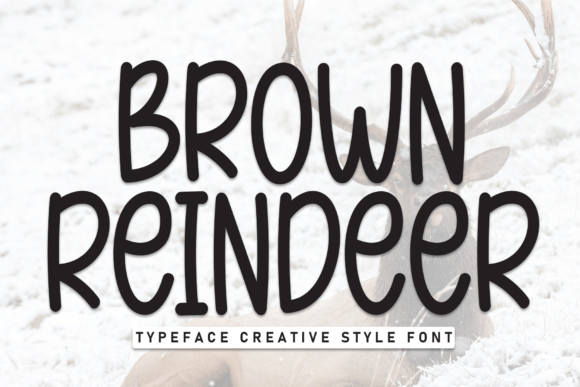
Brown Reindeer Font: Add a Cozy Touch to Your Designs
Are you looking for a font that can add a playful and warm touch to your designs? Look no further than the Brown Reindeer Font! This fun, bold display font features a handwritten style that’s perfect for holiday themes, invitations, and any project that needs a cozy vibe.
What is Brown Reindeer Font?
Brown Reindeer Font is a unique and eye-catching font that’s designed to bring a smile to your face. Its thick, rounded letters give it a friendly and approachable look that’s sure to capture the attention of your audience. Whether you’re designing a holiday card, a party invitation, or a social media post, this font is sure to add a personal touch that sets your design apart.
Key Features of Brown Reindeer Font
- Playful Handwritten Style: Brown Reindeer Font features a playful, handwritten style that’s perfect for adding a personal touch to your designs.
- Thick, Rounded Letters: The font’s thick, rounded letters give it a friendly and warm look that’s sure to appeal to your audience.
- Bold Display Font: Brown Reindeer Font is a bold display font that’s perfect for headlines, titles, and other design elements that need to stand out.
- Perfect for Holiday Themes: The font’s playful and festive style makes it perfect for holiday themes, including Christmas, Hanukkah, and other winter celebrations.
Uses for Brown Reindeer Font
Brown Reindeer Font is a versatile font that can be used for a wide range of design projects, including:
- Holiday Cards and Invitations: Add a personal touch to your holiday cards and invitations with this fun and festive font.
- Social Media Posts: Use Brown Reindeer Font to add a playful touch to your social media posts, including Facebook, Instagram, and Twitter.
- Party Decorations: Use this font to create fun and festive party decorations, including banners, signs, and other DIY projects.
- Branding and Packaging: Add a personal touch to your branding and packaging with this unique and eye-catching font.
Tips for Using Brown Reindeer Font
Here are a few tips for using Brown Reindeer Font in your designs:
- Use it as a Display Font: Brown Reindeer Font is a bold display font that’s perfect for headlines and titles. Use it to add a playful touch to your design.
- Pair it with Other Fonts: Pair Brown Reindeer Font with other fonts to create a unique and eye-catching design. Try pairing it with a simple sans-serif font for a fun and playful look.
- Experiment with Colors: Brown Reindeer Font looks great in a variety of colors, including bright and bold colors and more muted, pastel shades. Experiment with different colors to find the perfect look for your design.
Brown Reindeer Font is a fun and versatile font that’s perfect for adding a playful and warm touch to your designs. Its thick, rounded letters and playful handwritten style make it perfect for holiday themes, invitations, and any project that needs a cozy vibe. With its bold display style and wide range of uses, Brown Reindeer Font is a great addition to any designer’s toolkit.